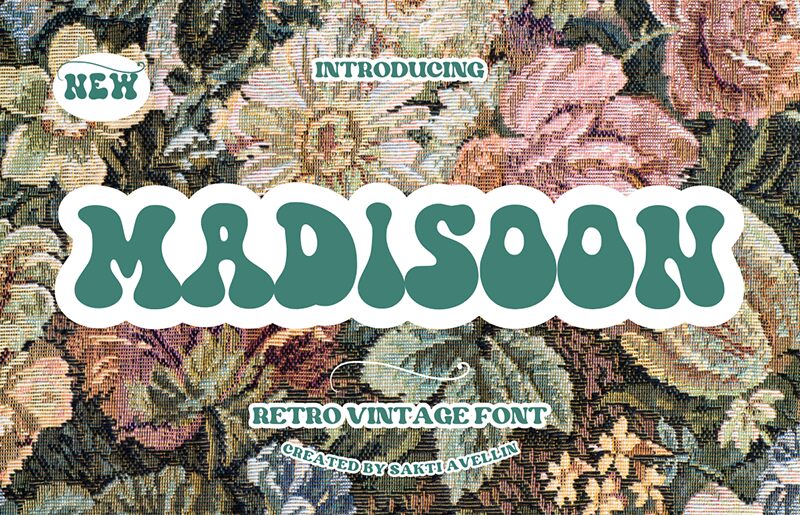
Madisoon
Madisoon font by Tri Sakti Oktaviano is a display typeface with a trendy groovy style. Each letter draws inspiration from 1970s posters with voluminous shapes, thick lines, and an organic flow. The bold characters give considerable attention in every design they’re included in whether they are used for small or long body texts.